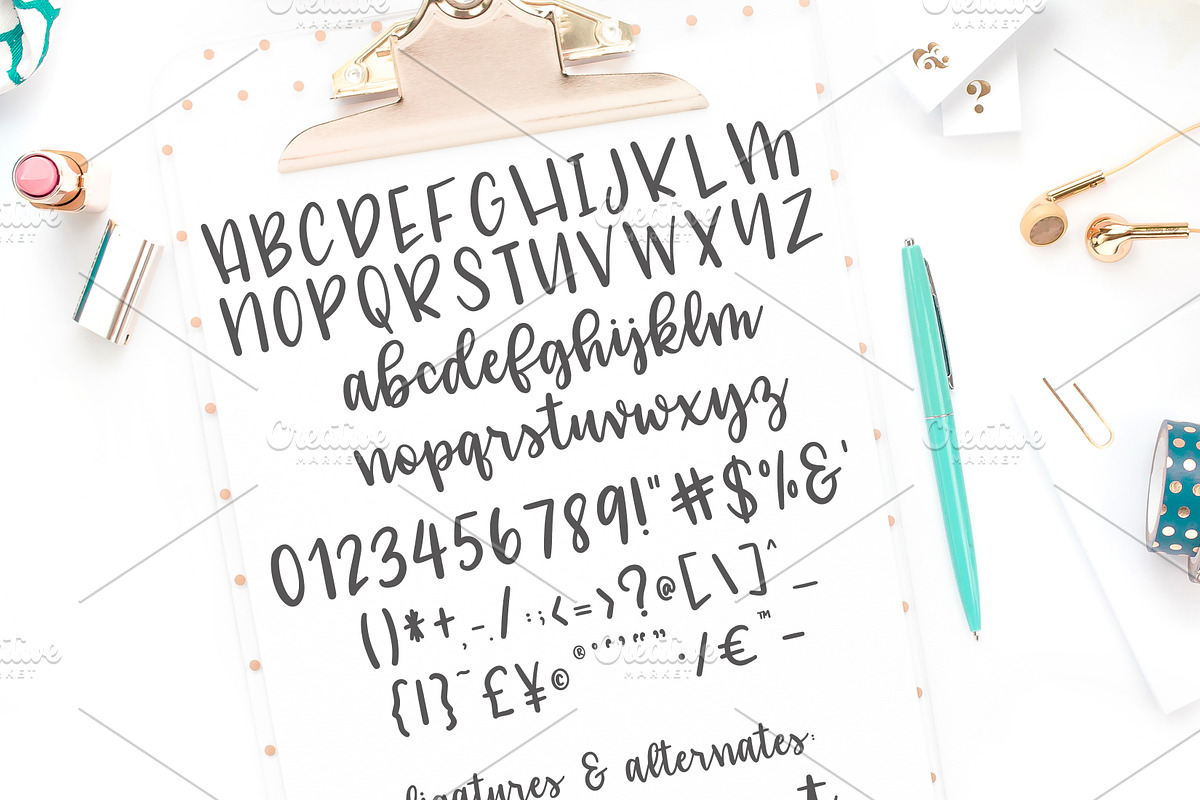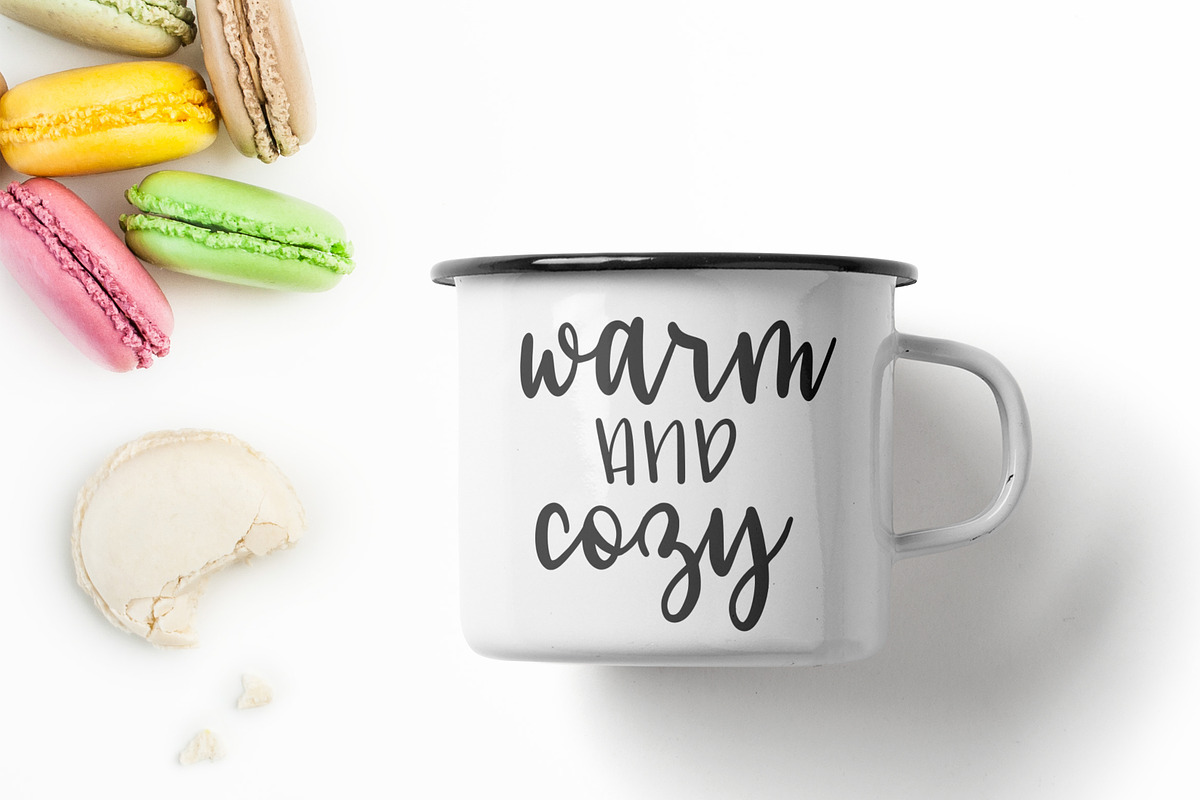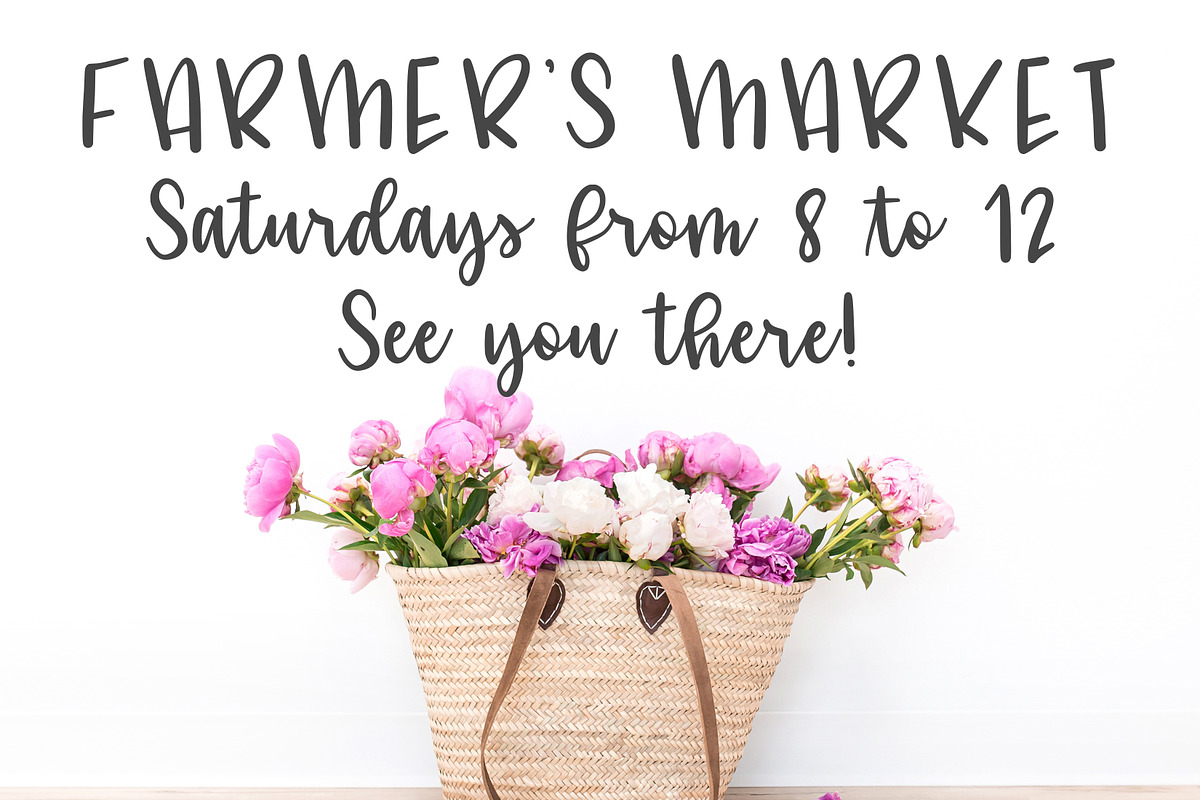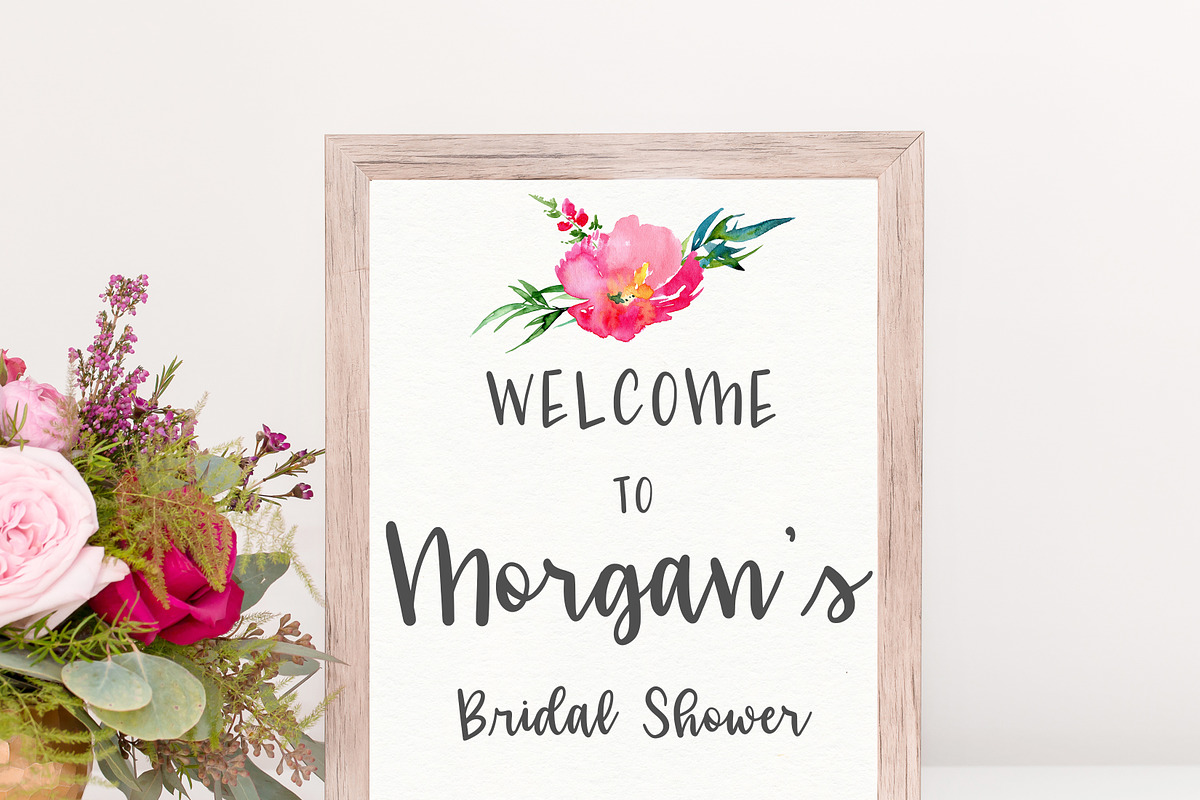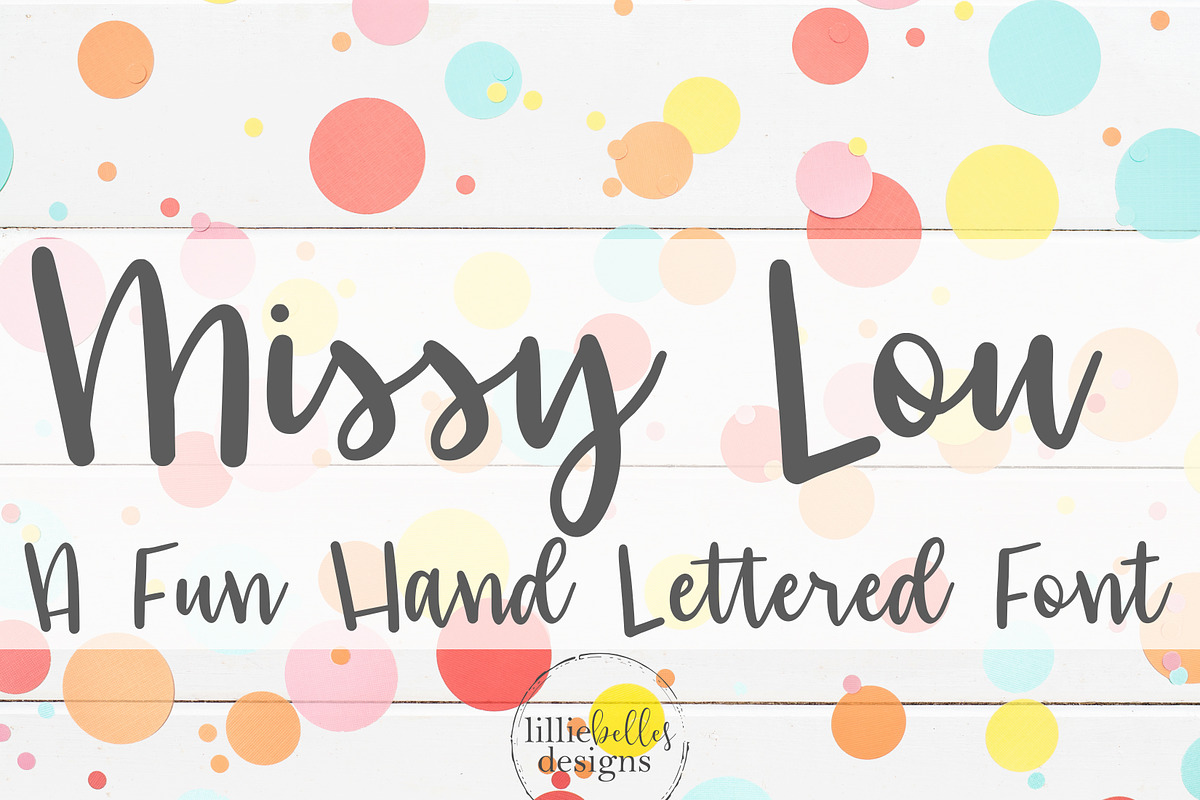
Missy Lou - a Hand lettered font
Missy Lou - a Fun Hand Lettered Font Here's a fun one! I love having the all print uppercase & all script lowercase all in one font. That's actually how I write in my "everyday" handwriting - a mix of print & script. The name of the font? Well, lots of people who know me affectionately call me Missy Lou.
- All Print Uppercase
- All Script Lowercase
- Numbers & Punctuation
- Standard ligatures
- Alternates